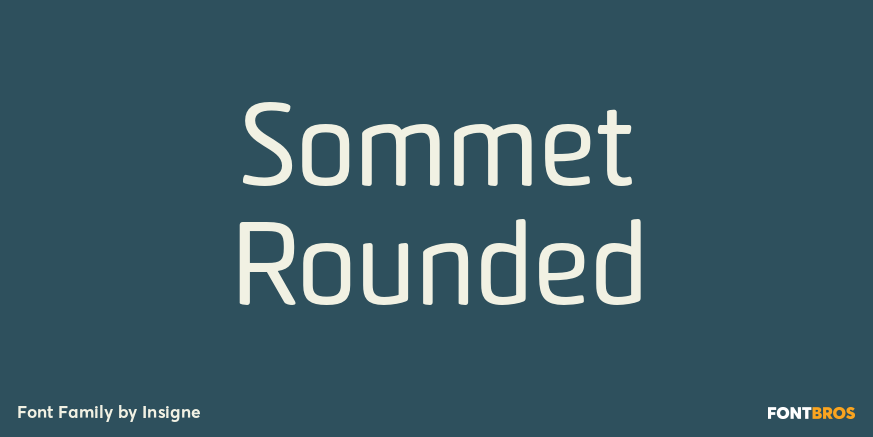
About Sommet Rounded
The Sommet series has been updated with a rounded variant. Sommet rounded retains its predecessor\’s high-tech web 2.0 character but features blunted terminators, making for a much warmer and friendlier impression. Sommet Rounded features a tall x-height,…